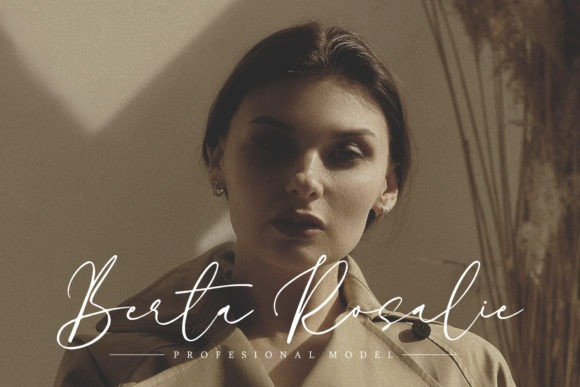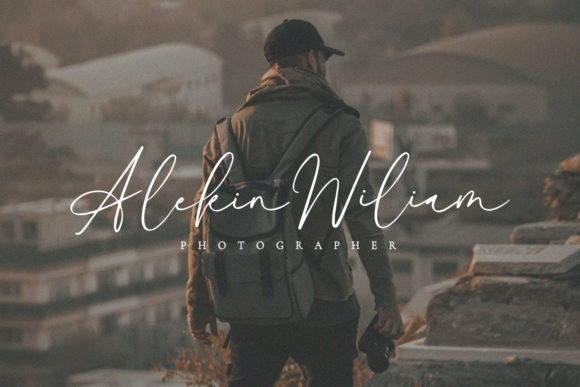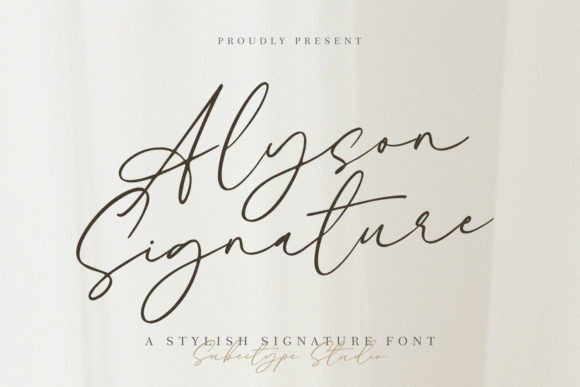
Alyson Signature Font
Alyson Signature Font is a distinct graceful script font. It will look stunning on various invitations, letters or cards. Fall for its ravishing style and use it to create gorgeous designs.